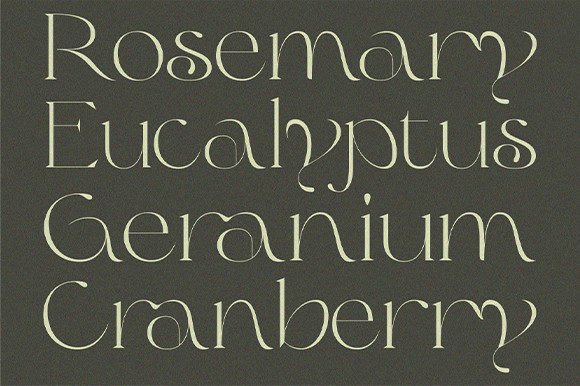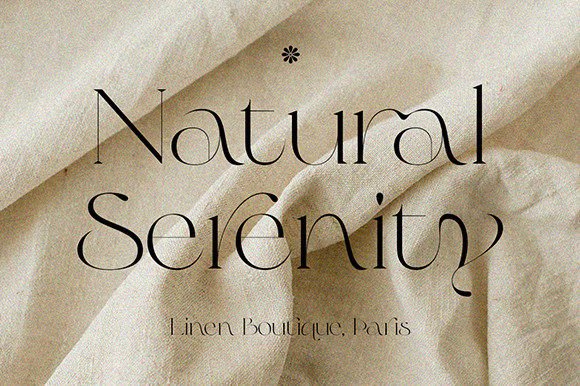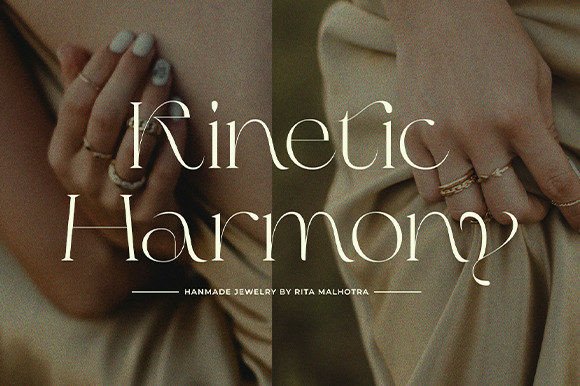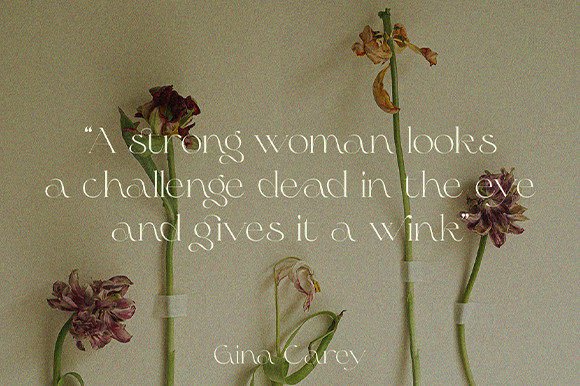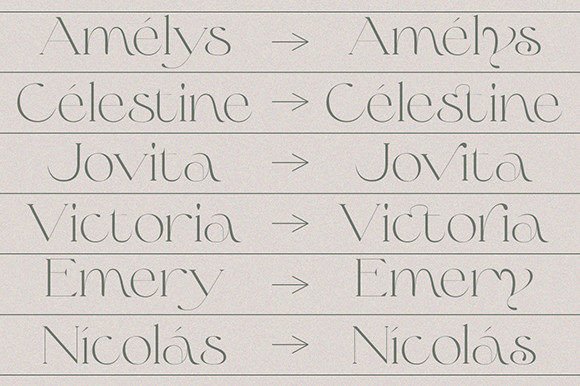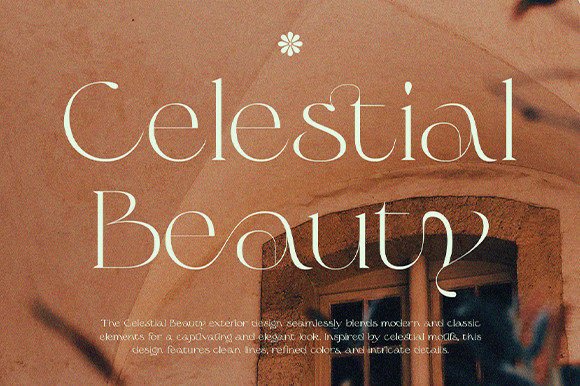
Introduction to Olive & Citrus Font
Have you ever found yourself staring at a blank canvas, waiting for inspiration to strike? That’s exactly where I was when I stumbled upon the Olive & Citrus Font. Its classic elegance and modern sophistication instantly sparked a creative project in my mind.
As a designer, I’m always on the lookout for high-quality design resources that can elevate my work. The Olive & Citrus Font is a game-changer – its versatility makes it suitable for branding designs, logos, magazines, and social media posts. With its transparent background and PUA encoding, you can access all the amazing glyphs and ligatures with ease, giving you the freedom to unleash your creativity.
Key Features of Olive & Citrus Font
- High-quality, unique font design suitable for creative projects
- Transparent background allows for seamless integration with any design resource
- Comes in a range of sizes and resolutions, making it ideal for various design applications
- Unique characteristics include a modern, citrus-inspired aesthetic and a range of customizable options
- Perfect for designers looking for a high-quality, free design resource for their next creative project
Honest Review: Olive & Citrus Font
I recently had the chance to try out the Olive & Citrus Font, and I must say it’s a lovely addition to any design project. This free download has quickly become one of my go-to resources for any creative project that needs a touch of elegance.
- High quality design that’s perfect for branding, marketing materials, and more
- Transparency option for backgrounds, making it easy to use with any design style
- A wide range of weights and styles to choose from, giving designers a lot of flexibility
⚠️ However, I did find that the font could be a bit too playful for some projects, and it might not be the best choice for more formal or professional designs.
Overall, I’m really impressed with the Olive & Citrus Font. It’s a great design resource that’s perfect for designers looking for a high-quality, free download. Whether you’re working on a branding project or just need a font for a fun creative project, Olive & Citrus is definitely worth checking out.
Tips for Getting the Most Out of Olive & Citrus Font
To get the most out of the Olive & Citrus Font, experiment with different font sizes, styles, and colors. You can also combine it with other design elements to create a unique and eye-catching design.
The Olive & Citrus Font is ideal for creative projects, such as:
Graphic design projects, including logos, business cards, and brochures
Web design projects, including websites and landing pages
Print design projects, including posters, flyers, and magazines
It’s also a great resource for designers who want to add a touch of elegance and sophistication to their designs.
Alternatives to Olive & Citrus Font
Comparison: Alex Brush Font is more elegant and refined compared to Olive & Citrus Font, but it lacks the citrus-inspired feel.
A fun and playful font that’s perfect for designing a creative project with a fun and lively vibe. Great Vibes Font features a high-quality design and is available for free download, making it a great design resource for designers. It’s ideal for headings and titles, and its transparent background makes it perfect for designing digital materials.
Yes, the Olive & Citrus Font is designed to be versatile and can be used on projects with transparent backgrounds. This makes it an ideal choice for creatives working on projects that require a high level of customization and visual flexibility.